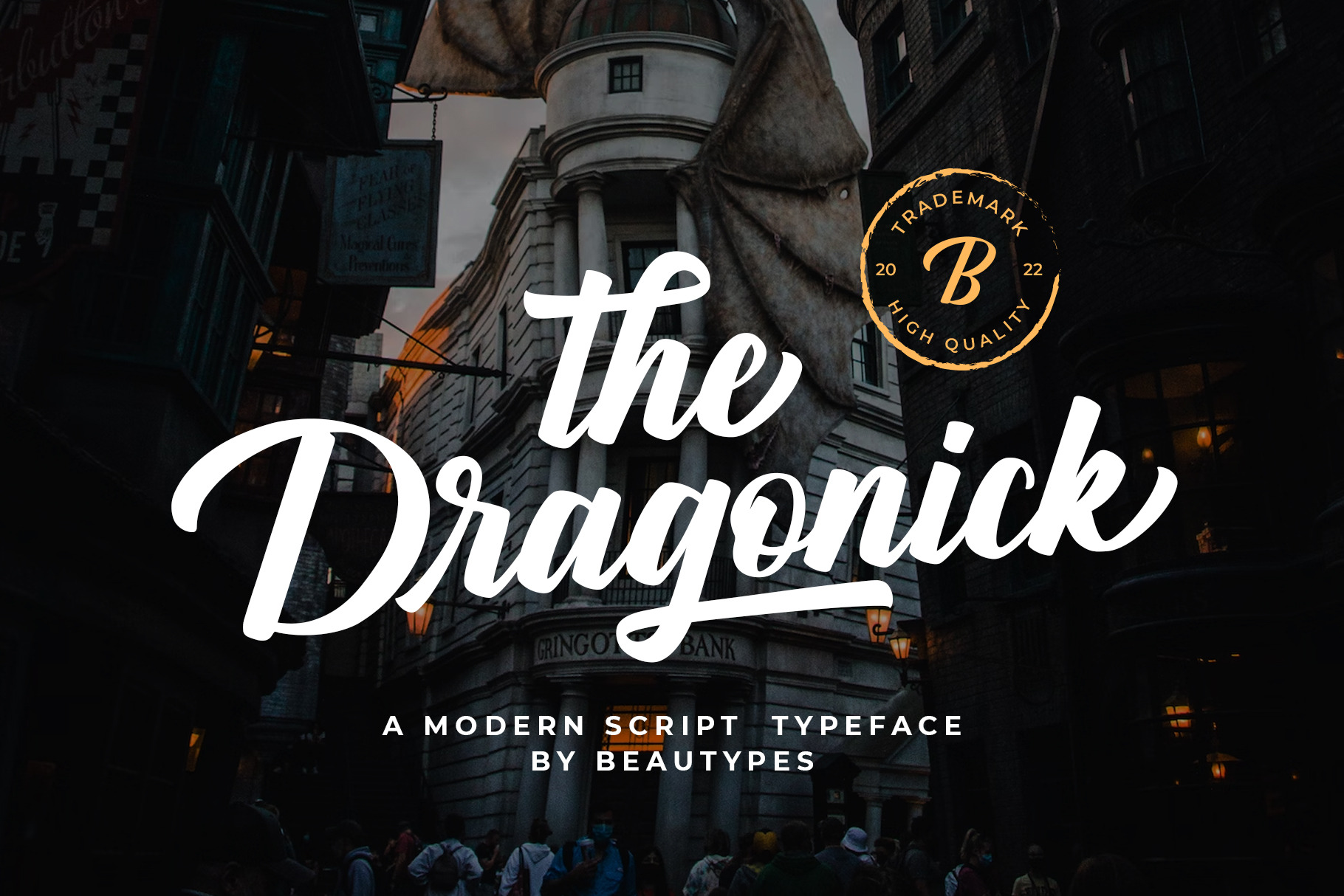
The Dragonick Script Font
The Dragonick is a script with vintage look and feel. This font perfectly made to be applied especially in logo, and the other various formal forms such as invitations, labels, logos, magazines, books, greeting / wedding cards, packaging, fashion, make up, stationery, novels, labels and others.